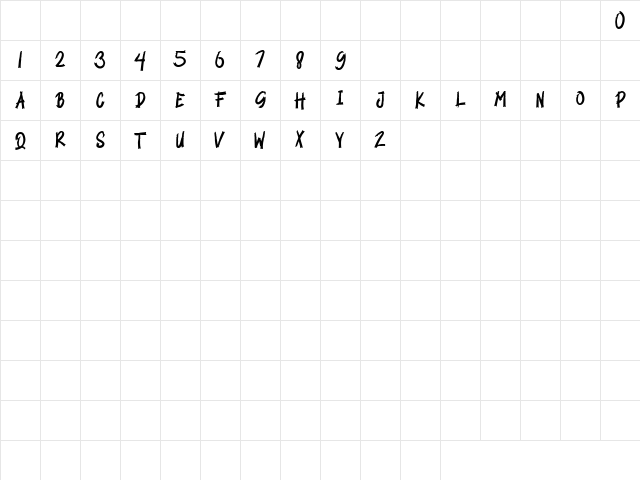
SOCIAL DISTANCE Regular
Designer: AMINMARIO 2020
Design Context for SOCIAL DISTANCE
SOCIAL DISTANCE is a composed and adaptable typeface that performs quietly and consistently across a wide range of design contexts.